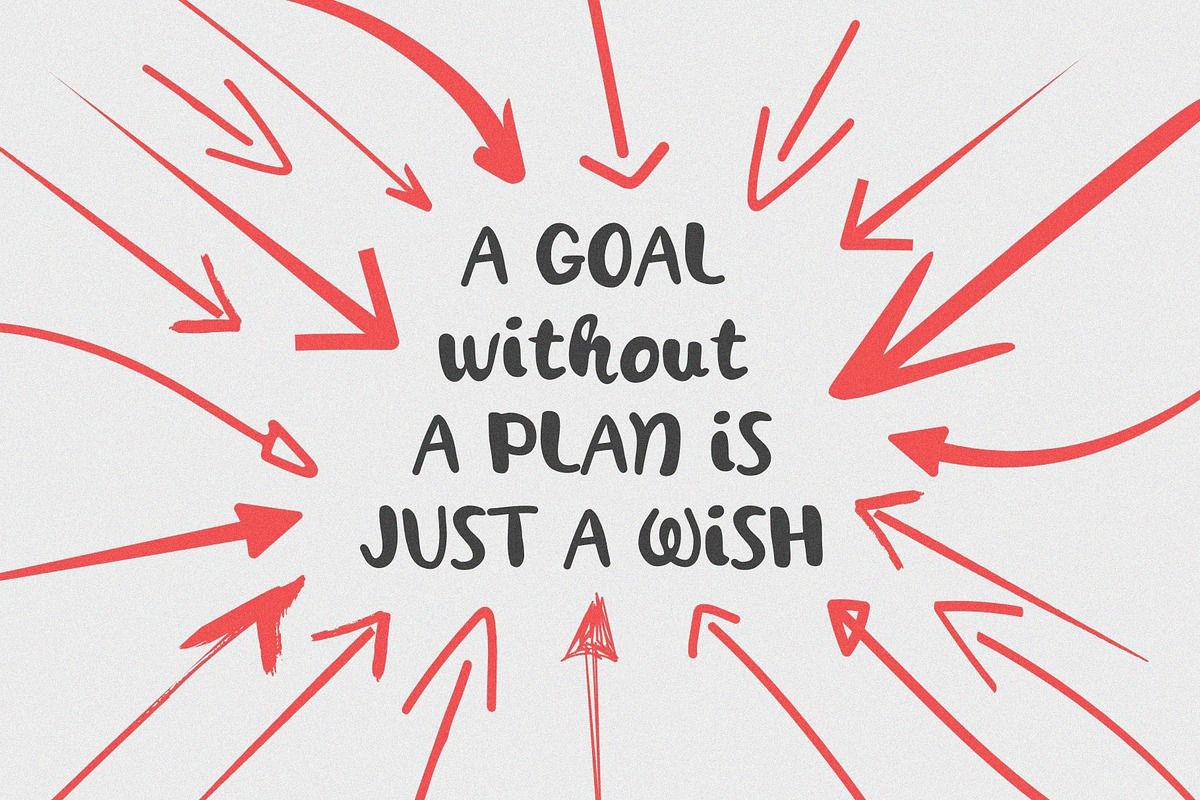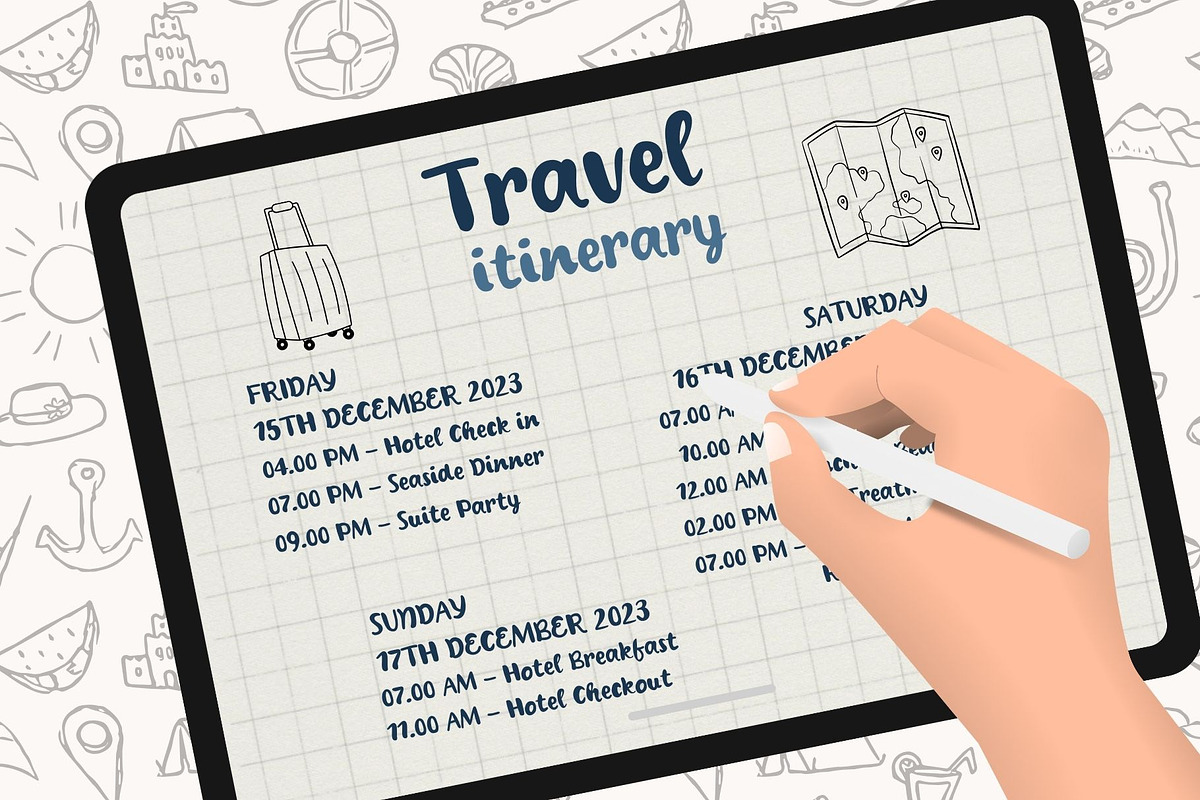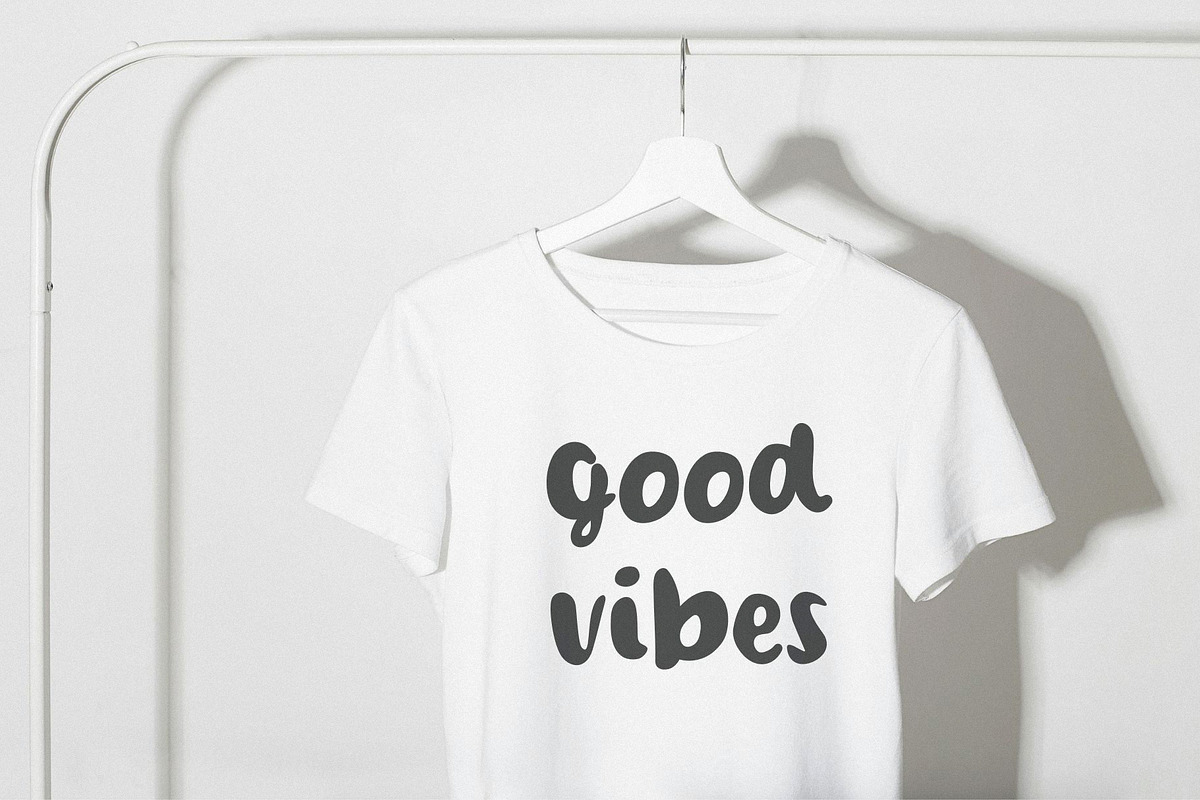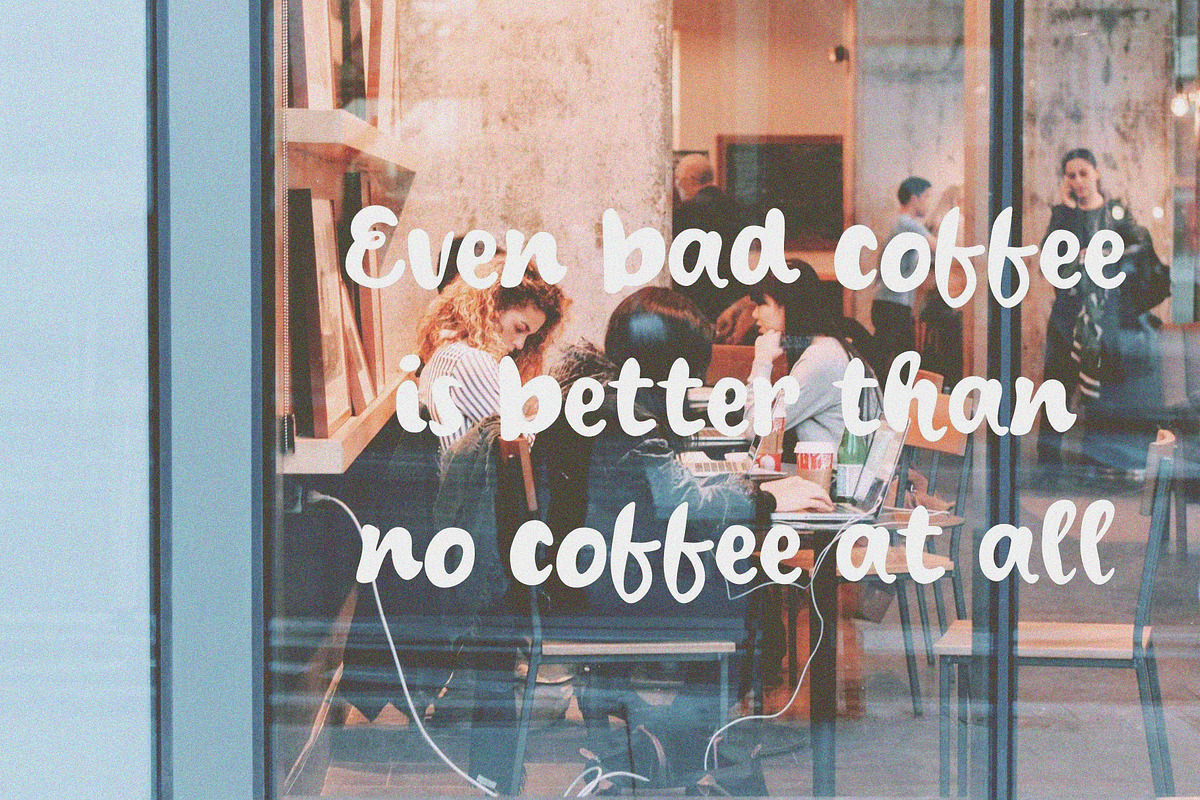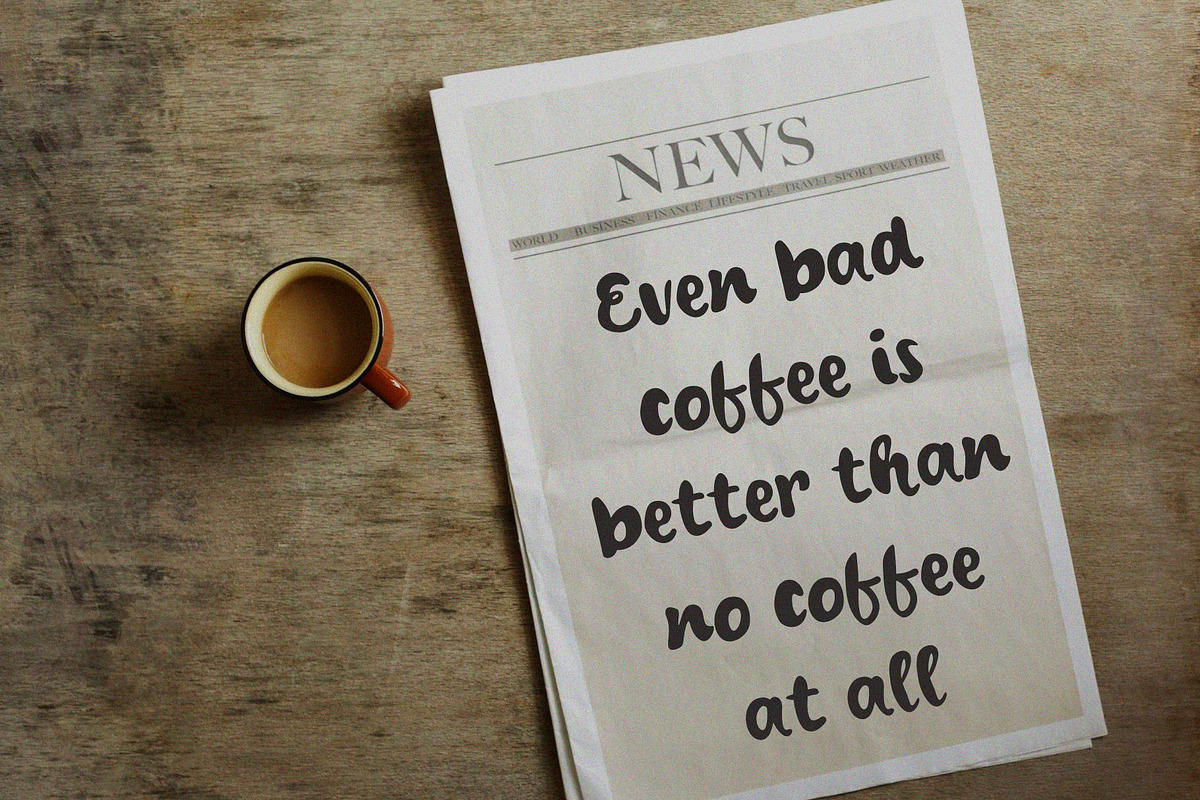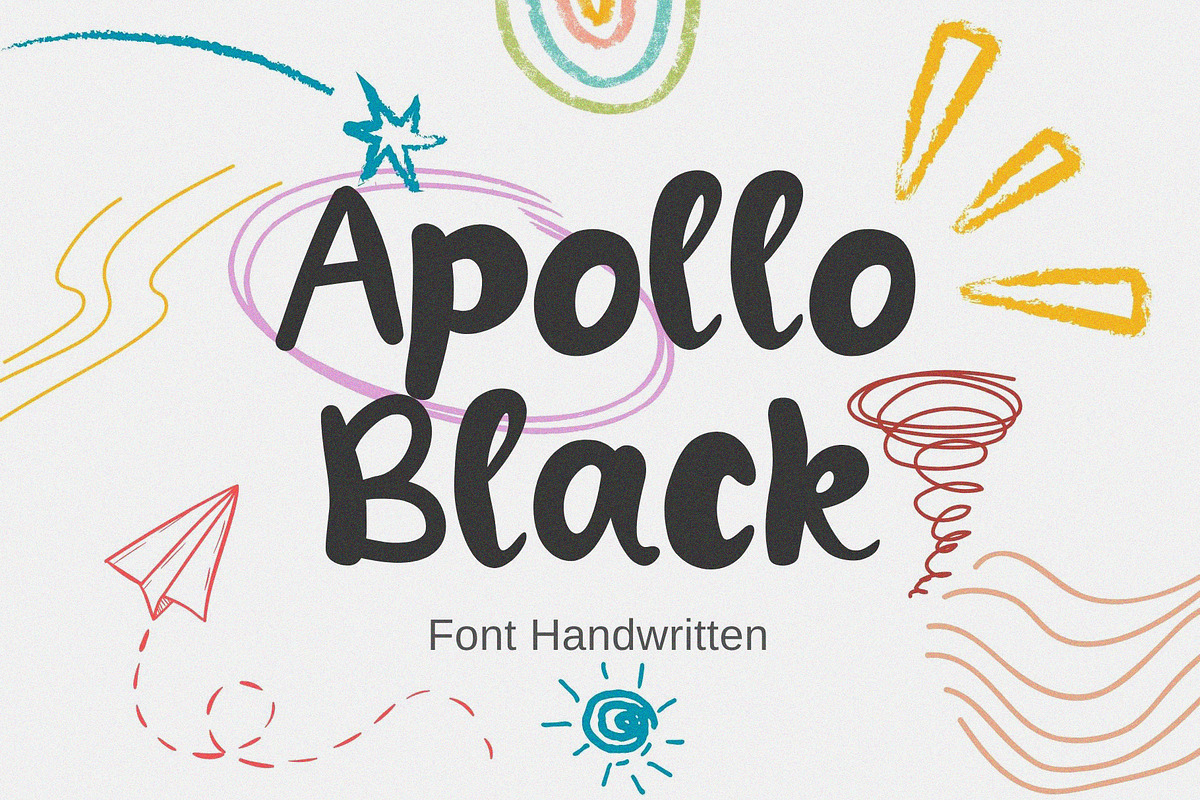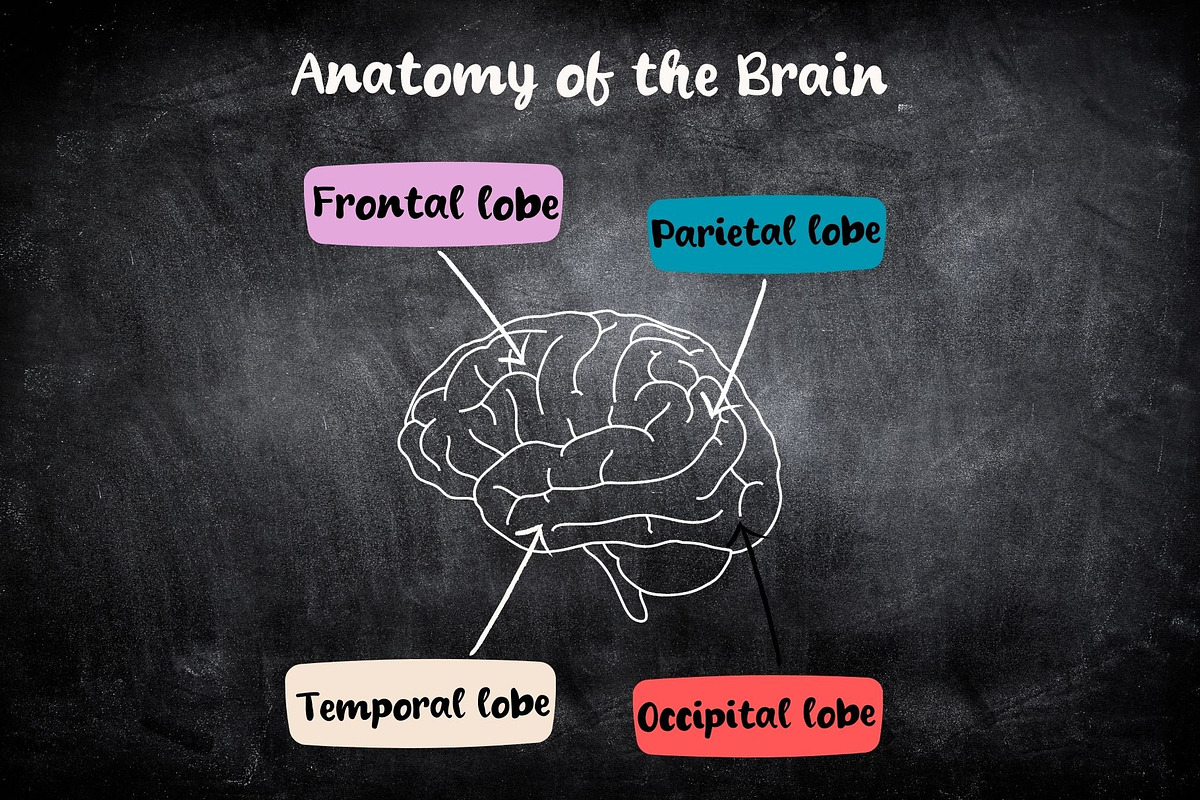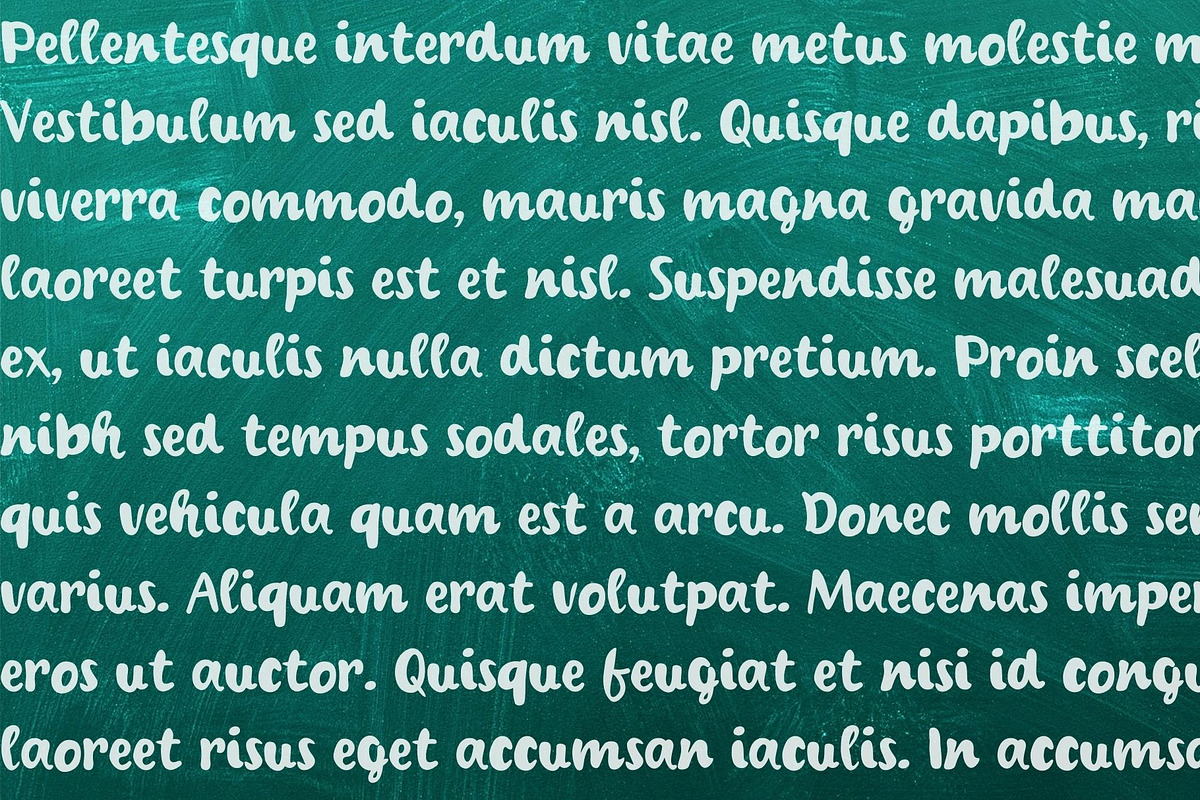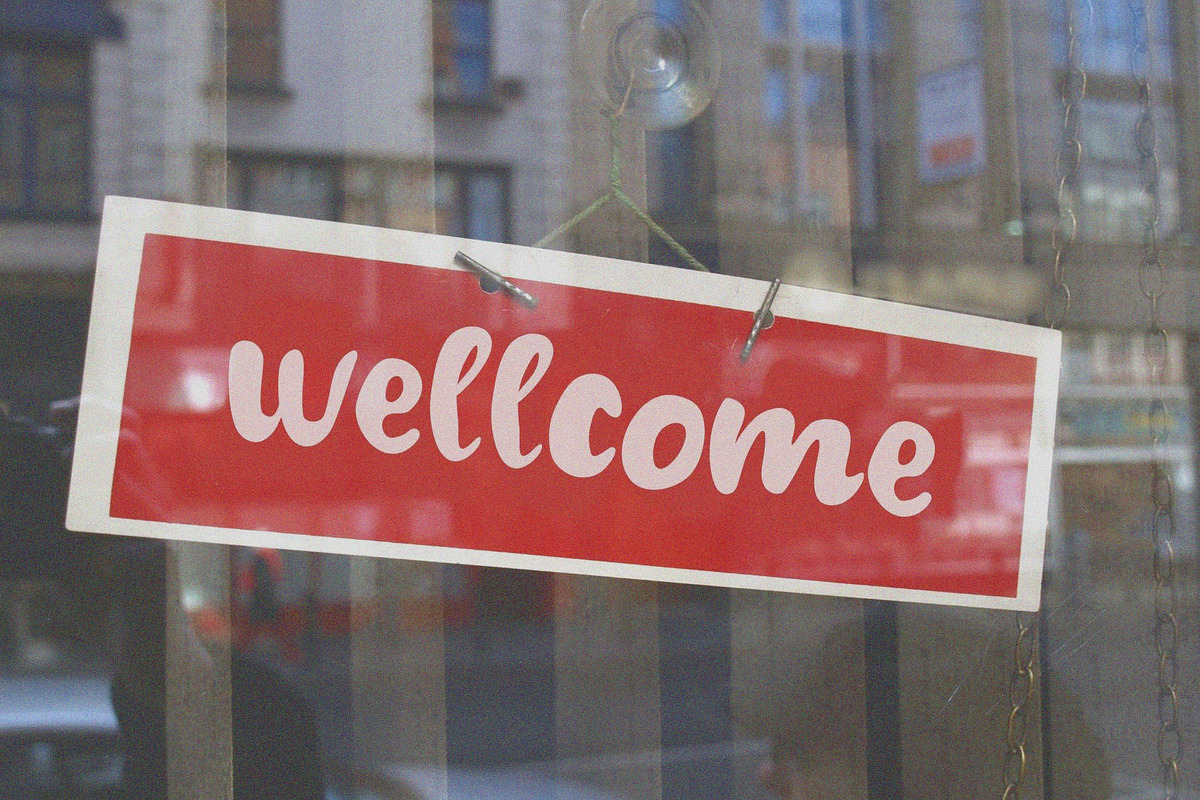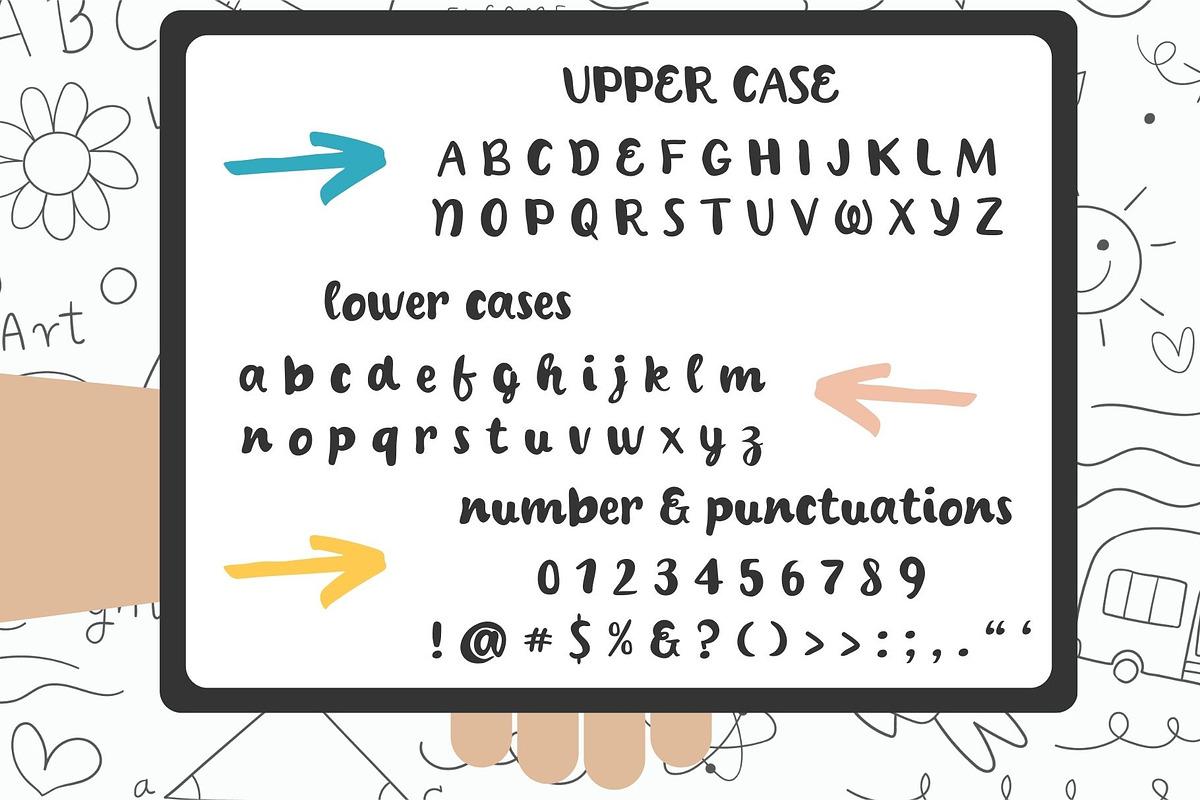
Apollo Black Handwritten
Apollo Black Handwriting font that can be used within your documents for commercial and personal use! We design our fonts to have a simple.
Perfectly suitable for numerous uses such as digital note-taking, digital planners, quotations, banners, logos, product packaging, titles, headers, menu lists, etc.
Notes- This fonts include capital/lowercase letters and basic symbols.